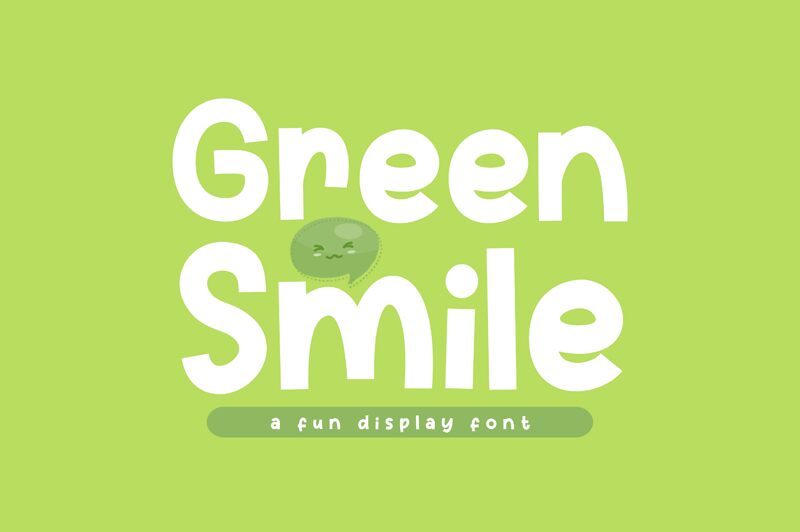
Green Smile
Green Smile is the perfect font for adding a touch of lightheartedness and cheer to any project. It's an irresistibly fun display typeface designed by Khurasan & Jalembe with bold comic style that is sure to make any design stand out. Ideal for creating logos, headlines, posters and other designs for children or projects with a playful feel.